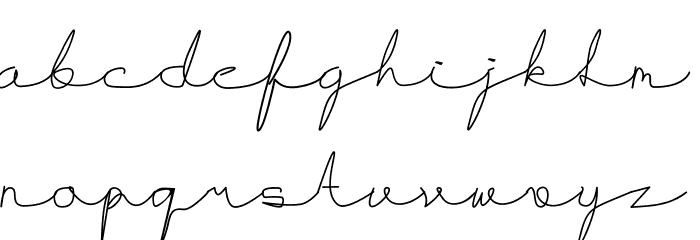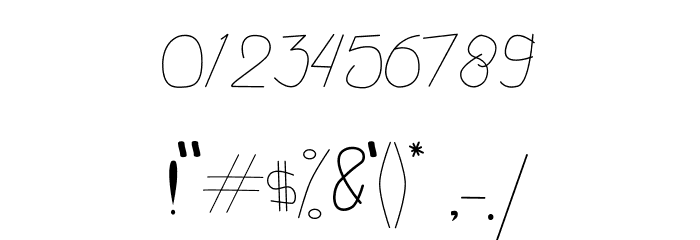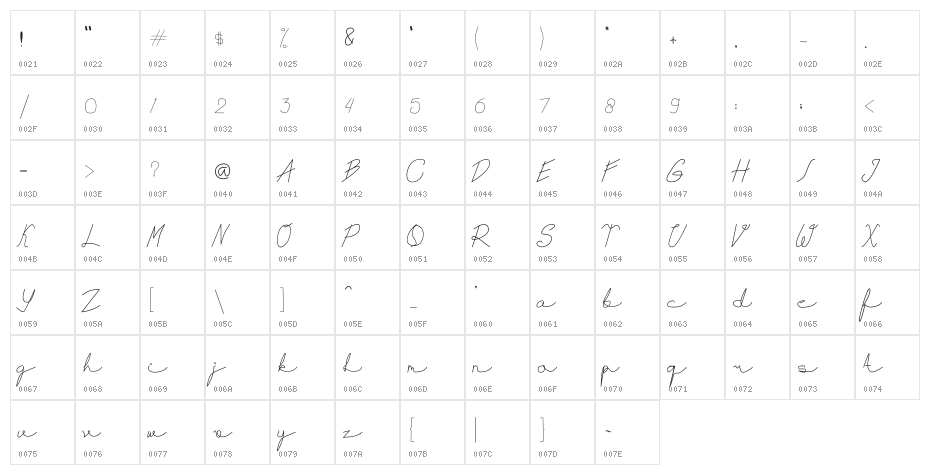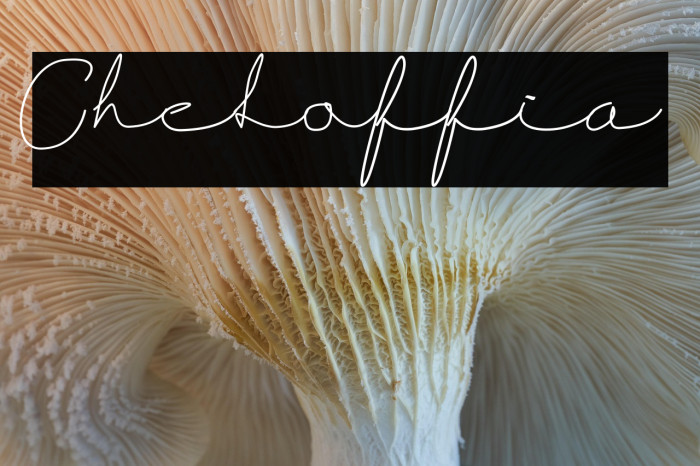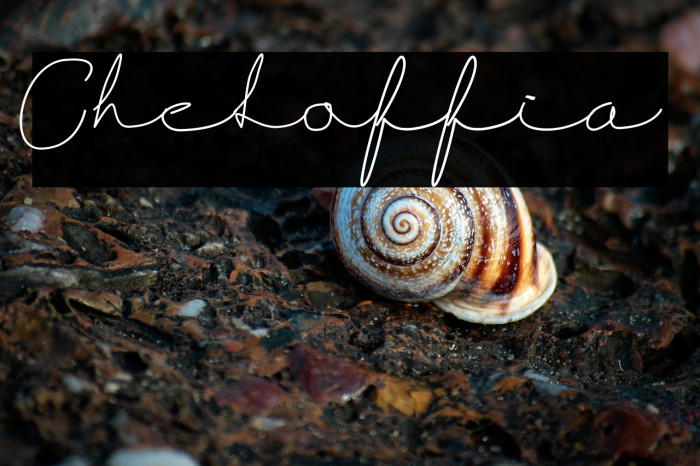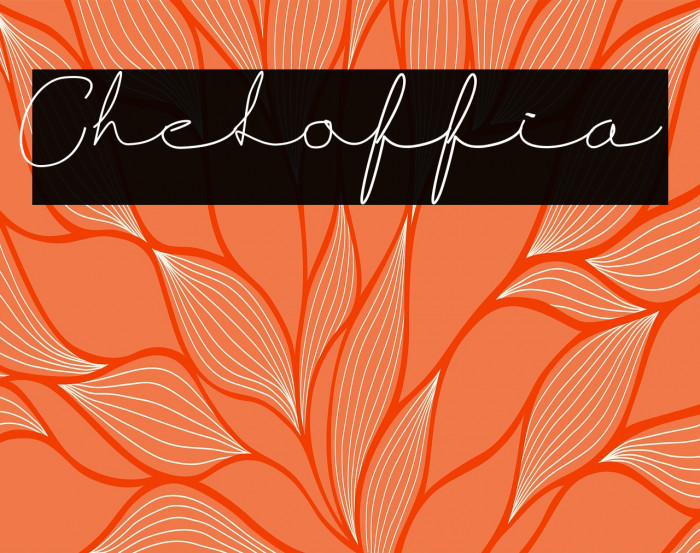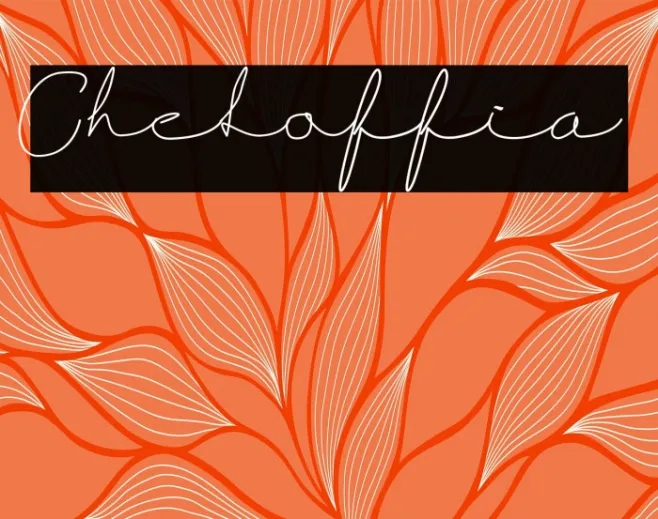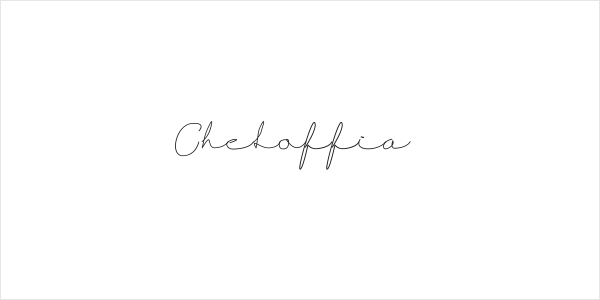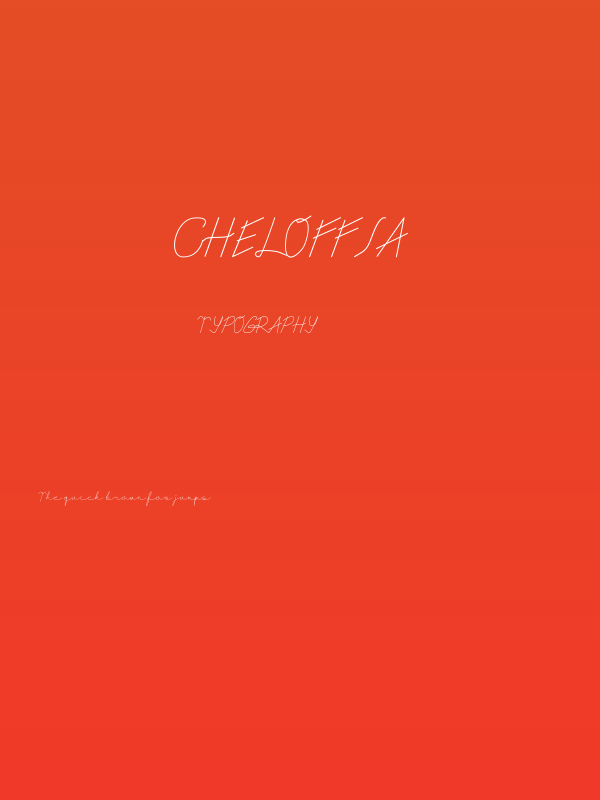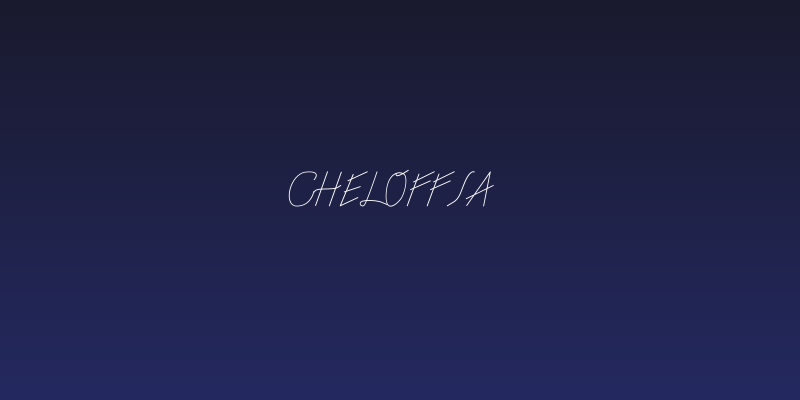
Cheloffia Font
This font features a delicate and flowing script style, characterized by its elegant and elongated letterforms. The uppercase letters are tall and slender, with a slight slant that adds a sense of motion and grace. The lowercase letters maintain a consistent flow, connecting smoothly in a cursive manner. The numerals are distinct yet harmonize with the overall script style, providing a cohesive look. Special characters are crafted with the same attention to detail, ensuring they blend seamlessly with the alphabet. This font exudes a sense of sophistication and charm, making it ideal for projects that require a touch of elegance.
A delicate and flowing script font with elegant, elongated letterforms.
- Proposed Projects: Ideal for wedding invitations, elegant branding, personal stationery, and romantic-themed designs.
- Overall Style: Elegant
- Use Case: Logos, Invitations, Decorative text